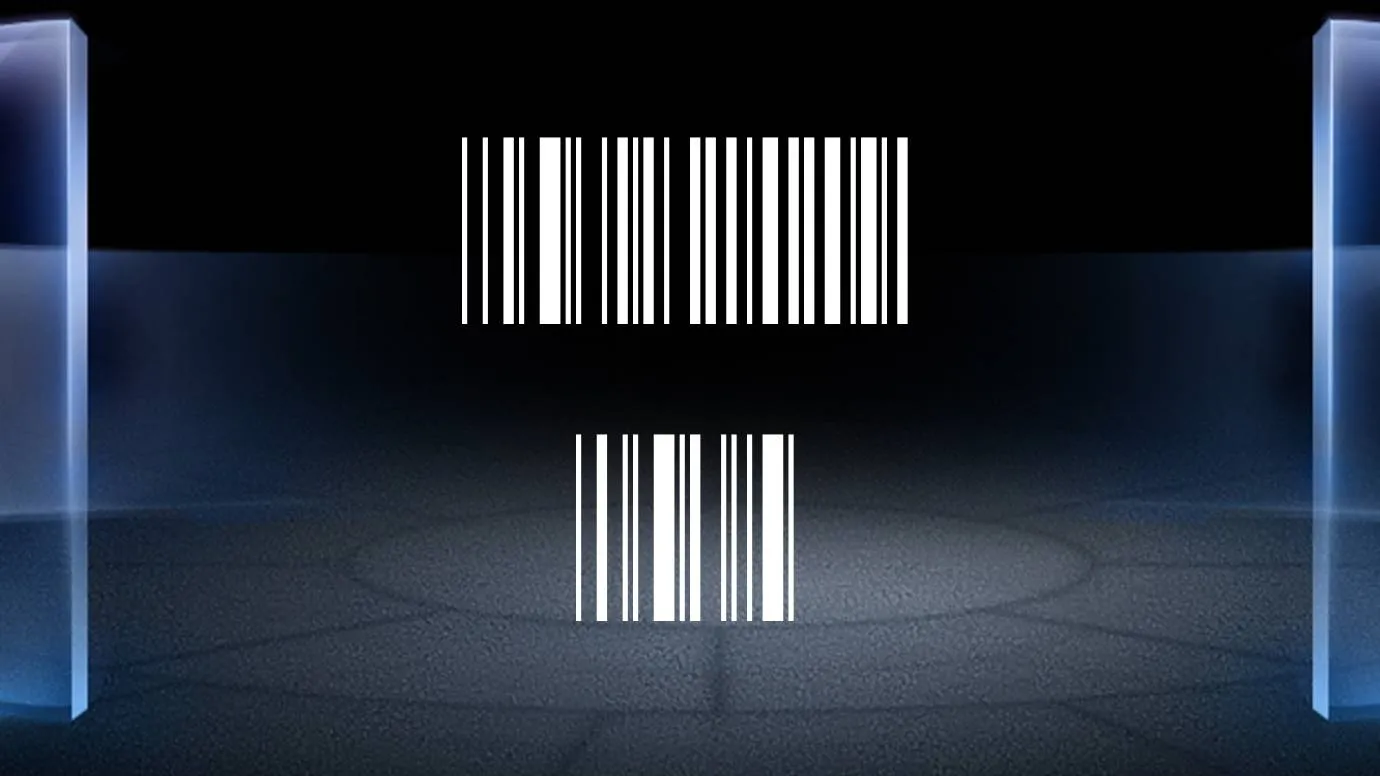
Code 128 Font Family is consist of straight lines that are thin, bold, and light. It consists of more than forty-five characters along with empty box-style characters. It is available in TrueType(TTF) format.  Code 128 is a famous barcode and it is highly used for underlining purposes.
Its thin black and straight bold characters are suitable for different types of design projects. Due to its unique look for all fonts, it is best for pairing with Barstrip Ultra Condensed Font.